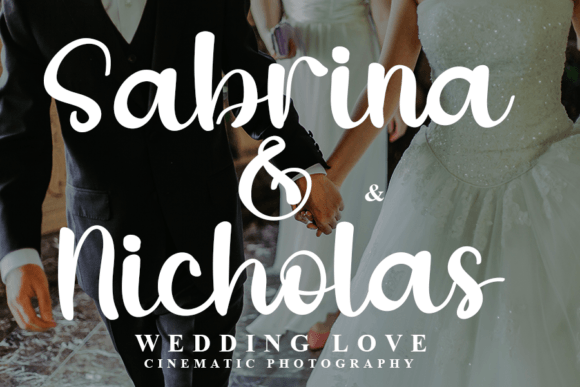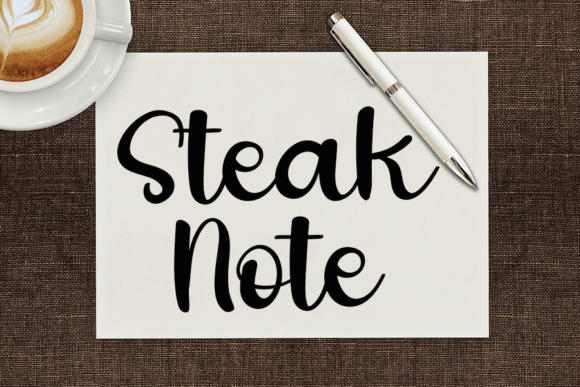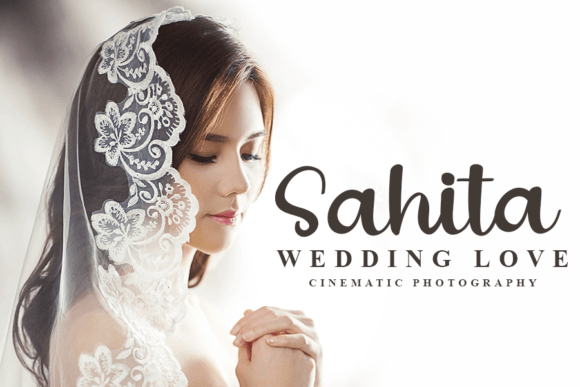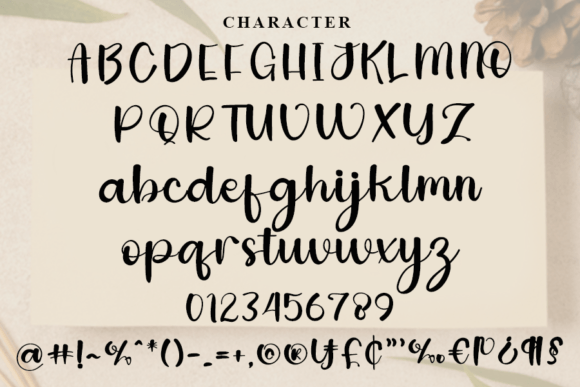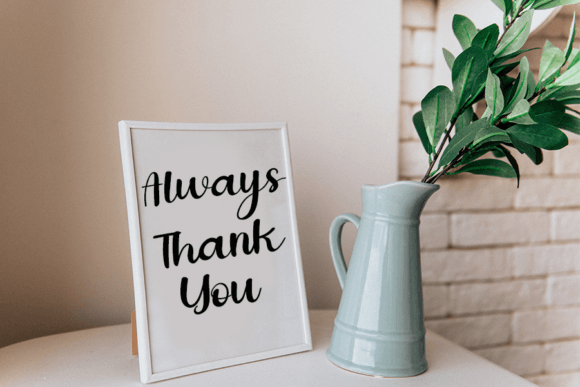
The Allout Font: Elevate Your Designs with Elegance and Sophistication
I’ll never forget the time I was working on a wedding invitation project, and my client asked me to create a custom design that exuded elegance and sophistication. I spent hours scouring the internet for the perfect font, but nothing seemed quite right. That was until I stumbled upon the Allout font. With its refined script style and modern look, it was love at first sight! In this article, I’ll share my experience with the Allout font, its features, and how to make the most of it in your designs.
An Honest Review of Allout Font
What I Love About Allout Font ✨
- 💫 Classy and elegant look: The Allout font has a sophisticated and refined style that’s perfect for high-end designs.
- ✅ Versatile: It can be used for a wide range of projects, from logos and branding to invitations, stationery, and social media posts.
- 🎨 Modern and fresh: The font has a contemporary feel that will make your designs stand out.
- 👍 Easy to read: Despite its elegant style, the Allout font is surprisingly legible, even at smaller sizes.
- ⚠️ Limited use in body text: While the Allout font is stunning for headings and titles, it may not be the best choice for longer blocks of text.
- 🤔 Some letters may require manual kerning: As with any script font, you may need to adjust the kerning of certain letter combinations for optimal results.
A Practical Guide to Using Allout Font
- Experiment with the font’s OpenType features, such as stylistic alternates and glyphs, to add visual interest to your design.
The Story Behind Allout Font
The Allout font was designed by a team of typographers who wanted to create a elegant and sophisticated script font that would meet the needs of modern designers. Inspired by classic calligraphy and modern digital design, the Allout font is the result of careful craftsmanship and attention to detail.
Q: What type of designs is the Allout font best suited for?
A: The Allout font is versatile and can be used for a wide range of designs, including logos, branding, invitations, stationery, and social media posts.
Q: Is the Allout font easy to read?
A: Yes, despite its elegant style, the Allout font is surprisingly legible, even at smaller sizes.